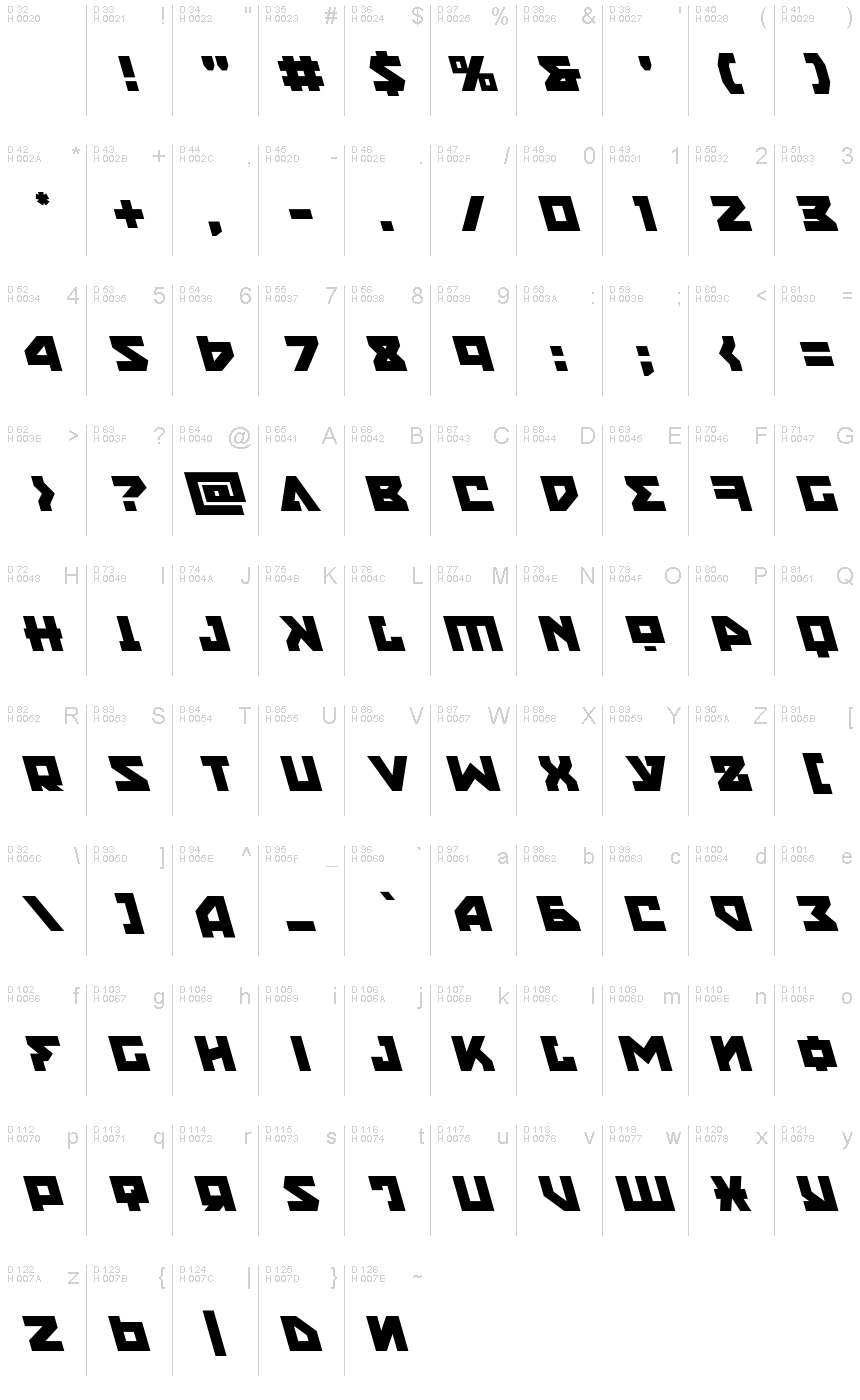
"Nyet" is a bold, expanded Russian-inspired font that commands attention with its striking angular forms and unapologetic personality.
Crafted by designer Daniel Zadorozny, this distinctive typeface exudes a sense of strength and character, making it an ideal choice for headlines, branding, and editorial layouts that require a bold, unconventional aesthetic. The expansive width and weighty strokes of "Nyet" lend it a powerful, attention-grabbing presence, while the unique Cyrillic-influenced shapes add a touch of exotic flair.
This versatile font can elevate a range of design projects, from posters and book covers to packaging and web design, where it can inject a dose of raw, unapologetic energy.
Nyet Leftalic